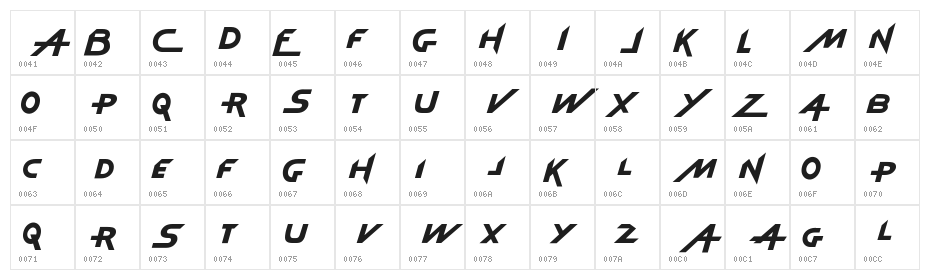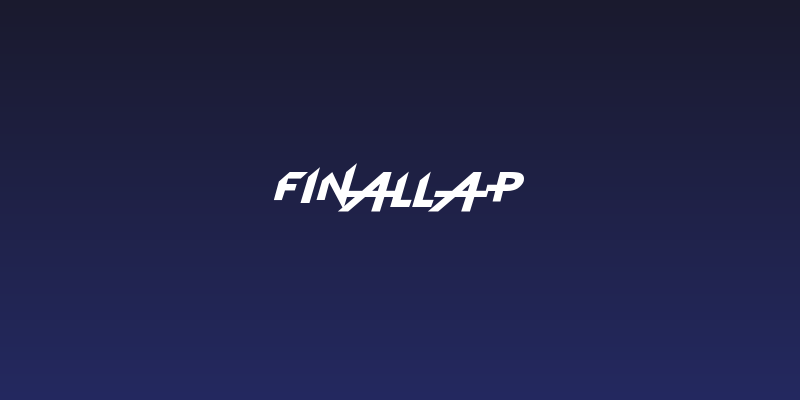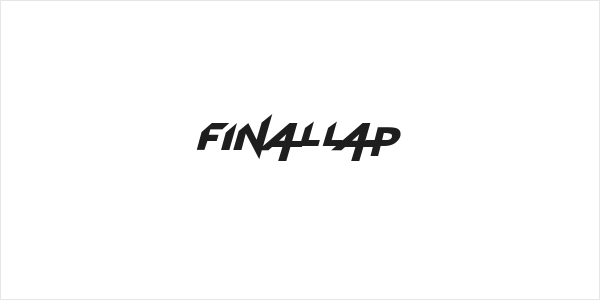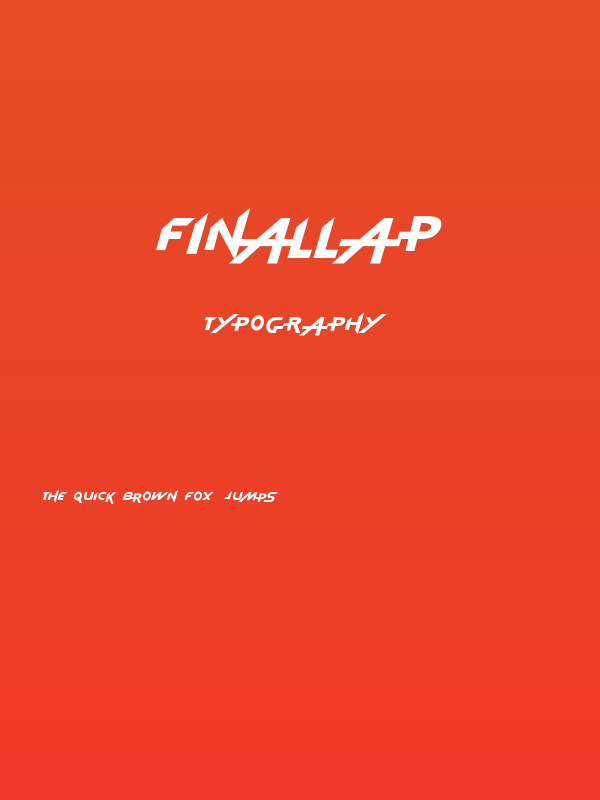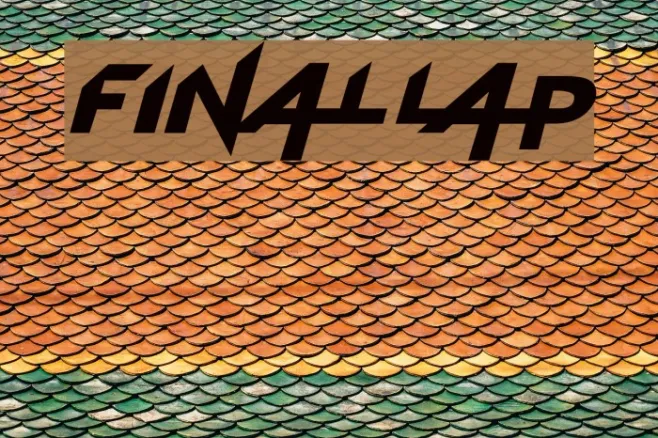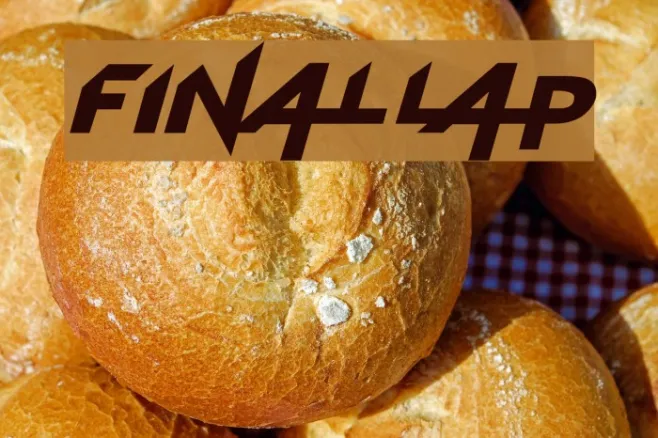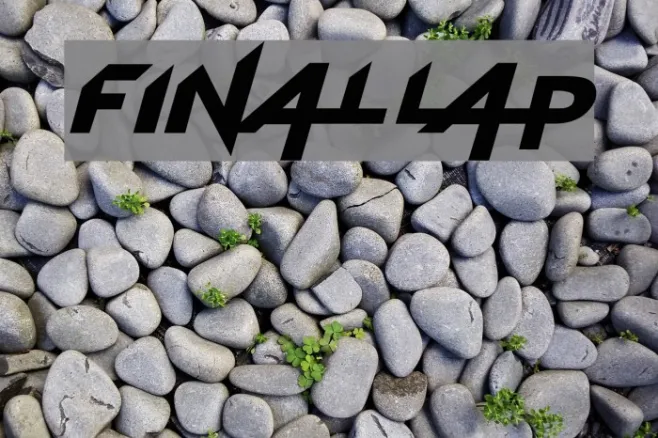
finallap Font
finallap Description
This dynamic and angular font exudes a sense of speed and motion, characterized by its sharp edges and italicized slant. The letters are bold and slightly condensed, giving it a compact yet powerful appearance. The strokes are consistent in thickness, providing a medium contrast that enhances readability while maintaining a sleek, modern aesthetic. The font's design is reminiscent of racing or sports themes, making it ideal for projects that require a sense of energy and forward movement.
| Proposed Projects | Ideal for sports branding, racing event posters, dynamic logos, and any project needing a sense of motion and energy. |